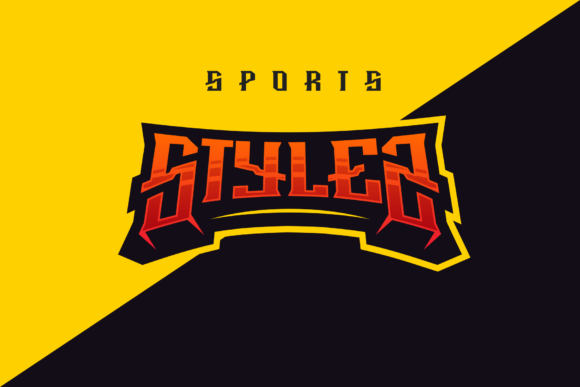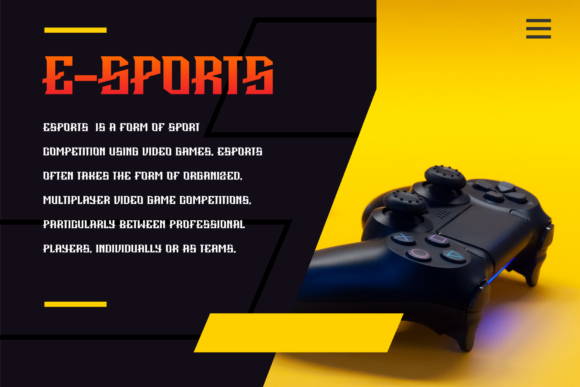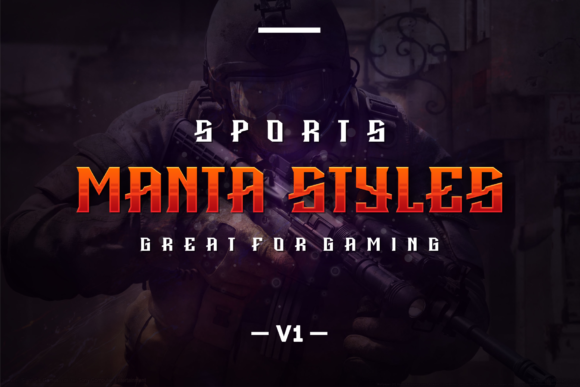
Introduction to Manta Styles V1 Font
Make your designs stand out with Manta Styles , a stylish and unique display font.
It will look stunning on posters, thank you cards, quotes, greeting cards, logos, business cards and every other design which needs a creative touch .
Why Choose Manta Styles V1 Font?
Manta Styles V1 Font offers exceptional quality and versatility, making it a valuable addition to your design toolkit. Whether you’re creating for personal projects or commercial use, Manta Styles V1 Font delivers professional results.